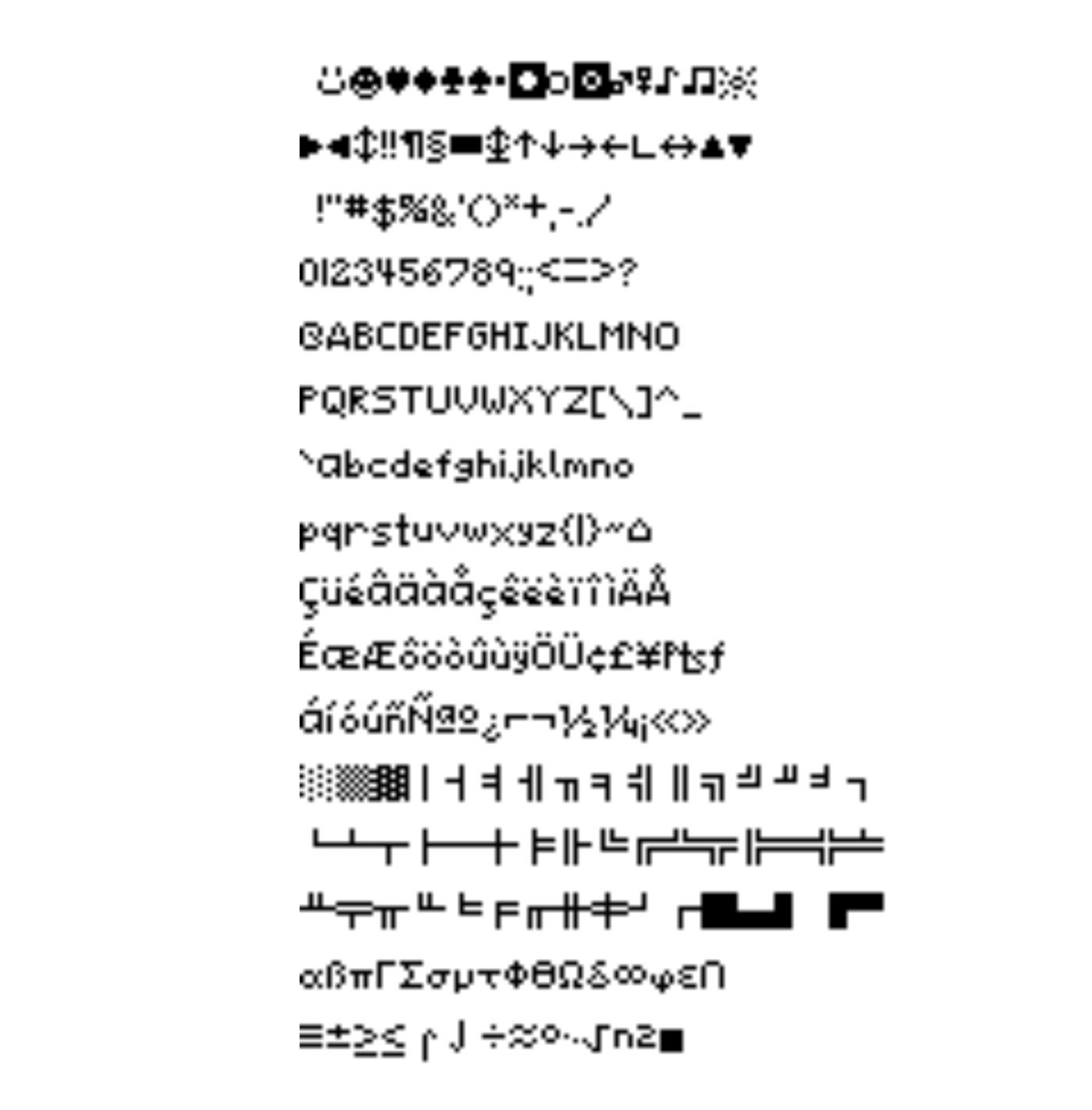
• Lasinanelone — a 6x4 pixelated font with 4,000+ Unicode Characters.
FEWER .notdef CHARACTERS: Lasinanelone covers a LOT of missing glyphs.
SUPPORTS HANGUL AND CJK CHARACTERS: We have tried to work very hard on the Hangul and CJK Characters, not making one single mistake.
Lasinanelone - a 6×4 pixelated font.
This font now supports IBM code page 437.